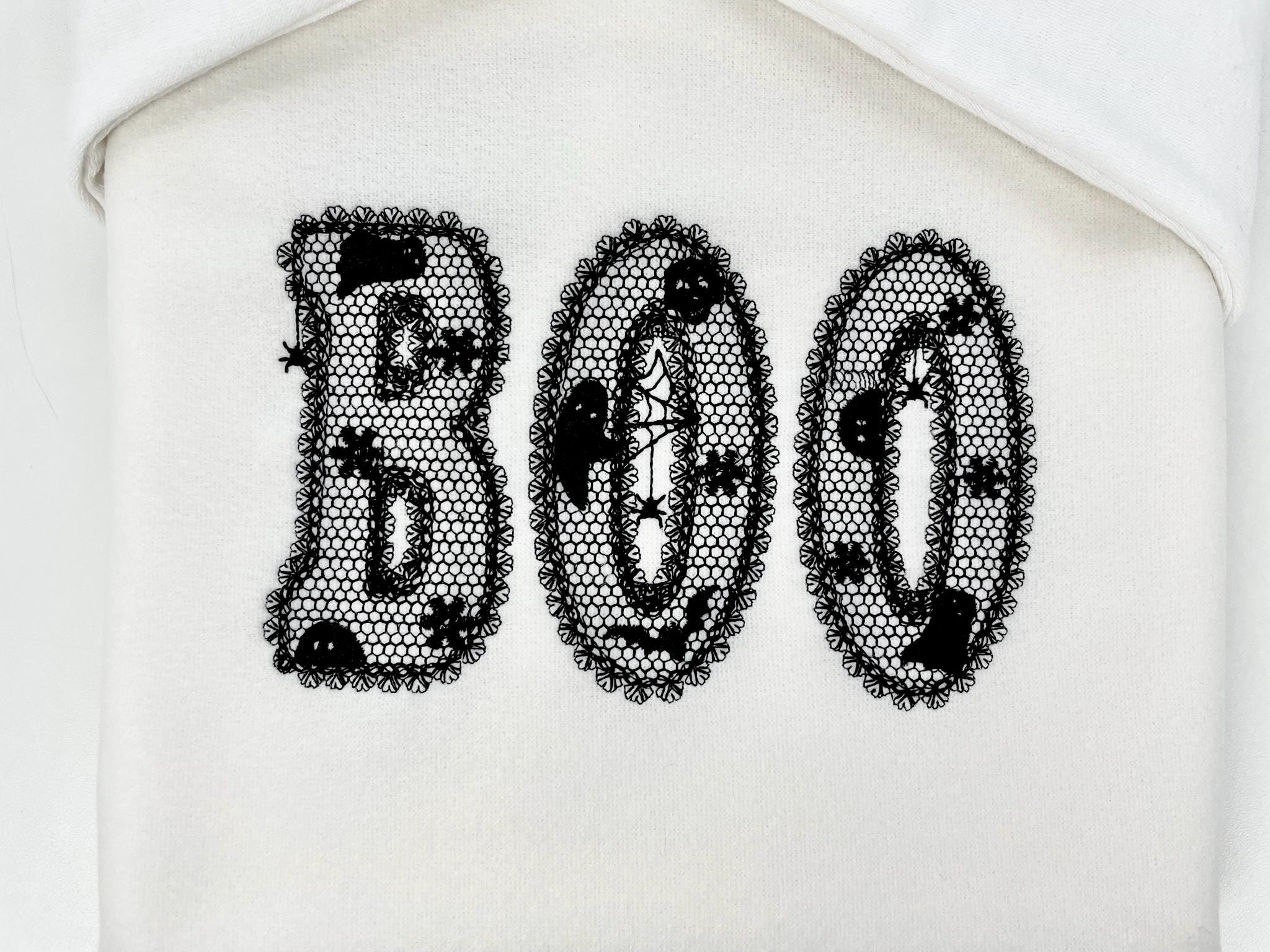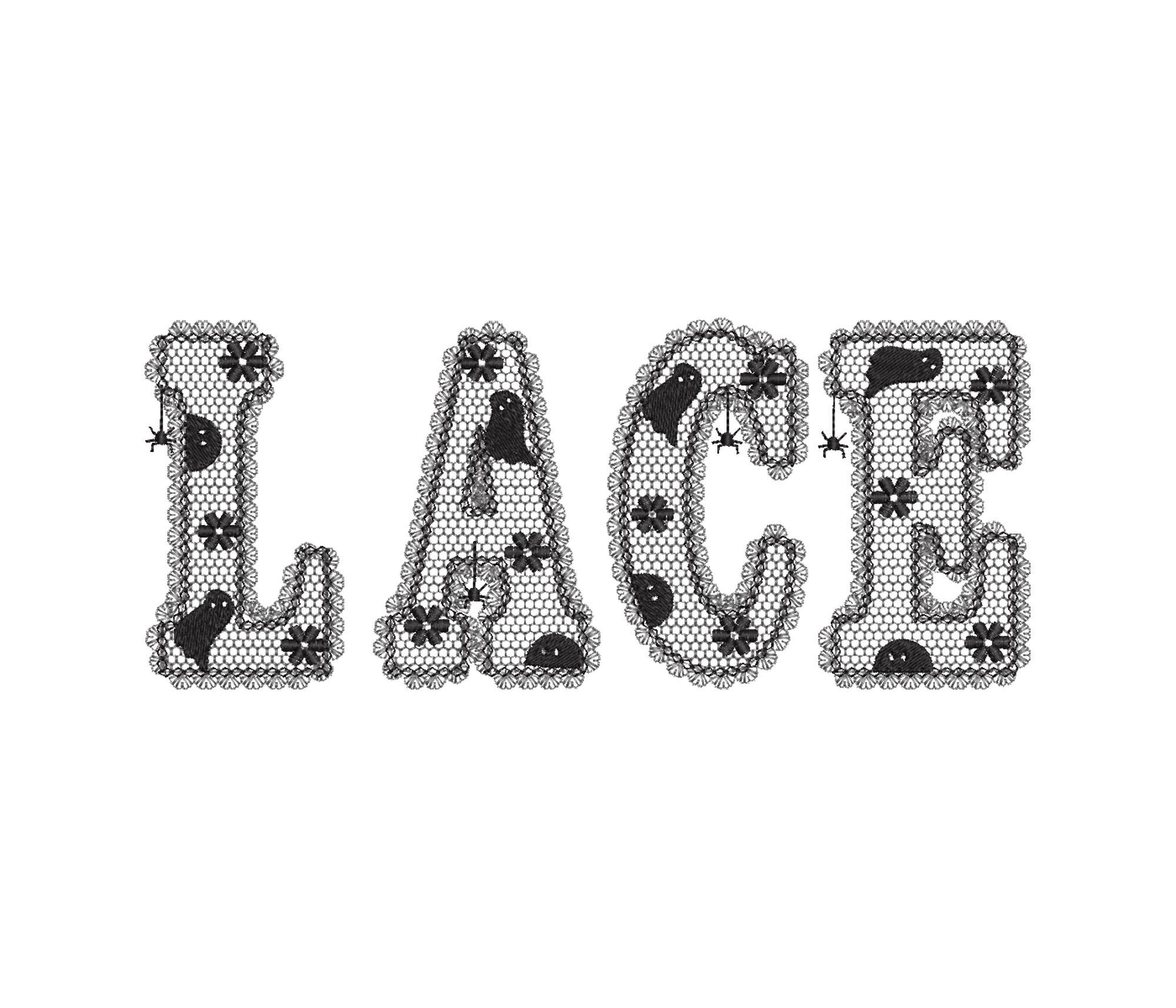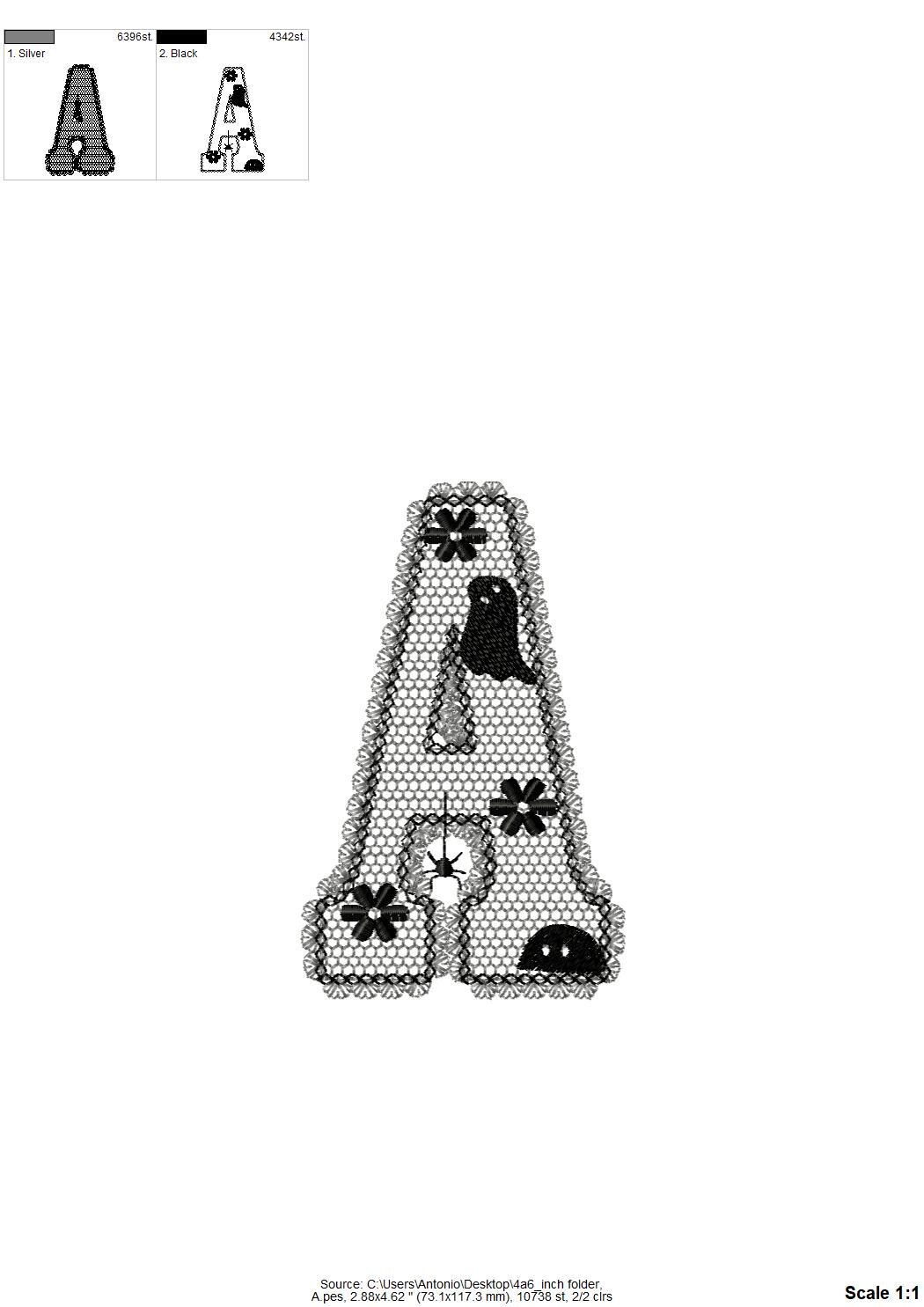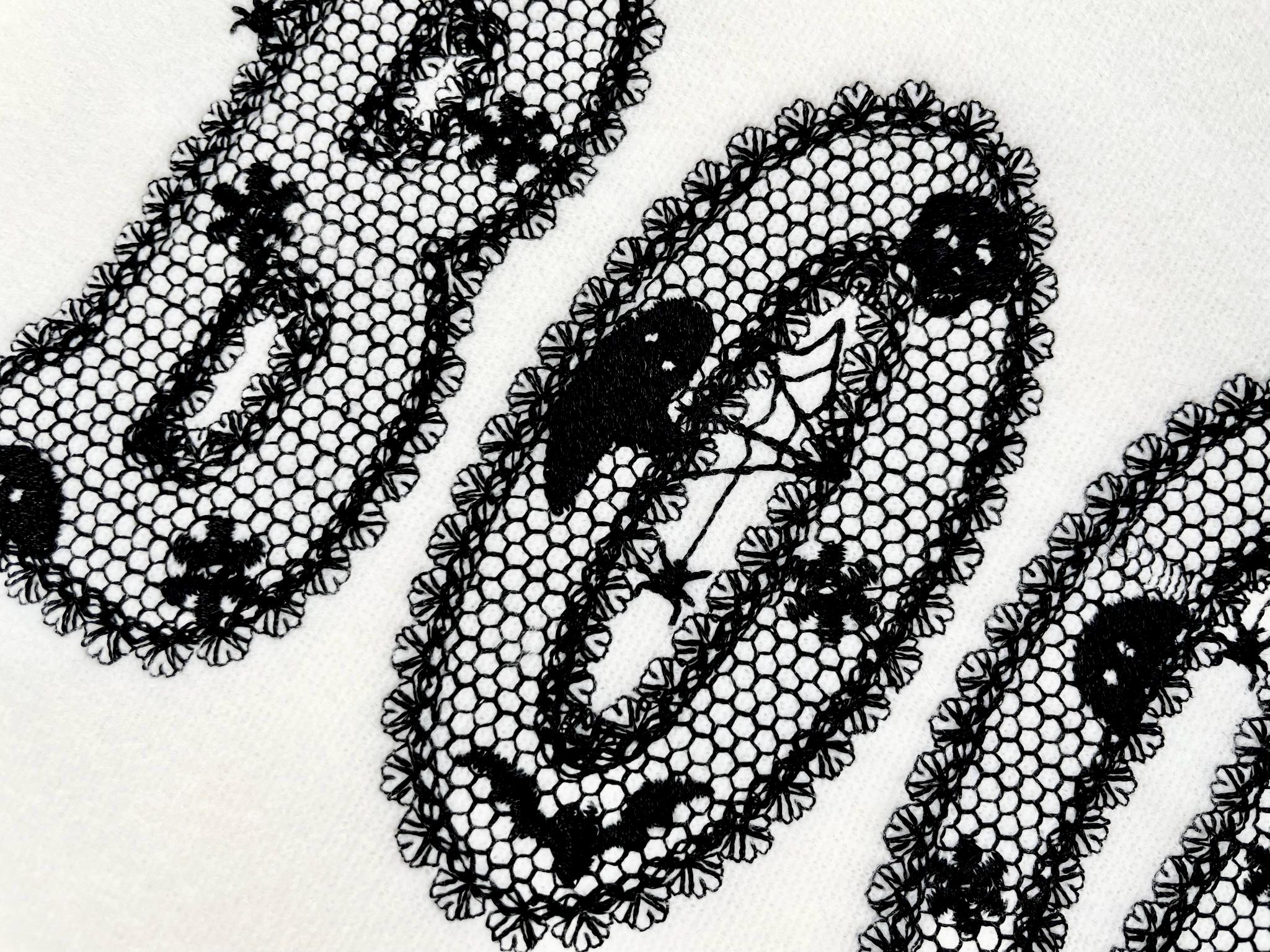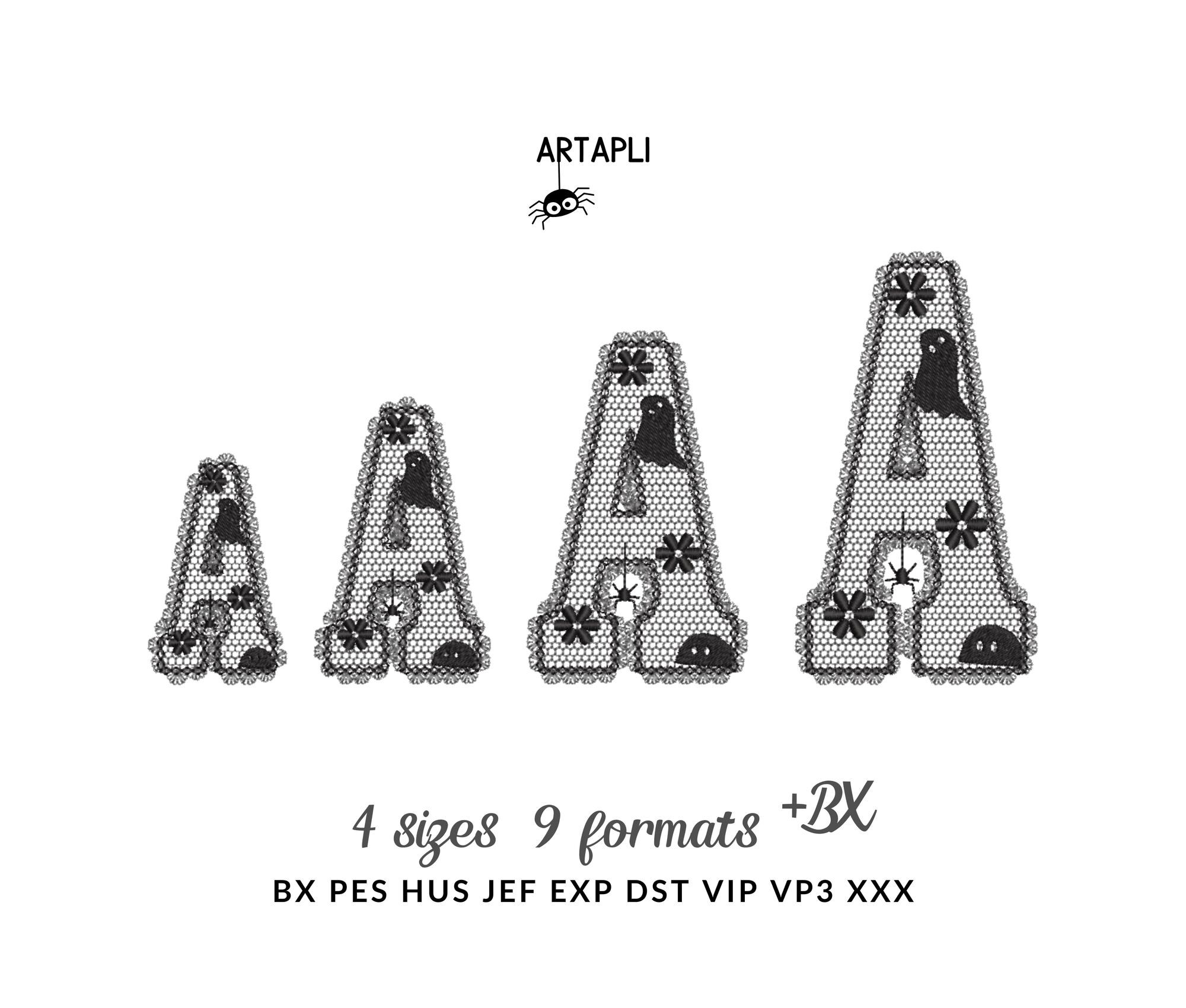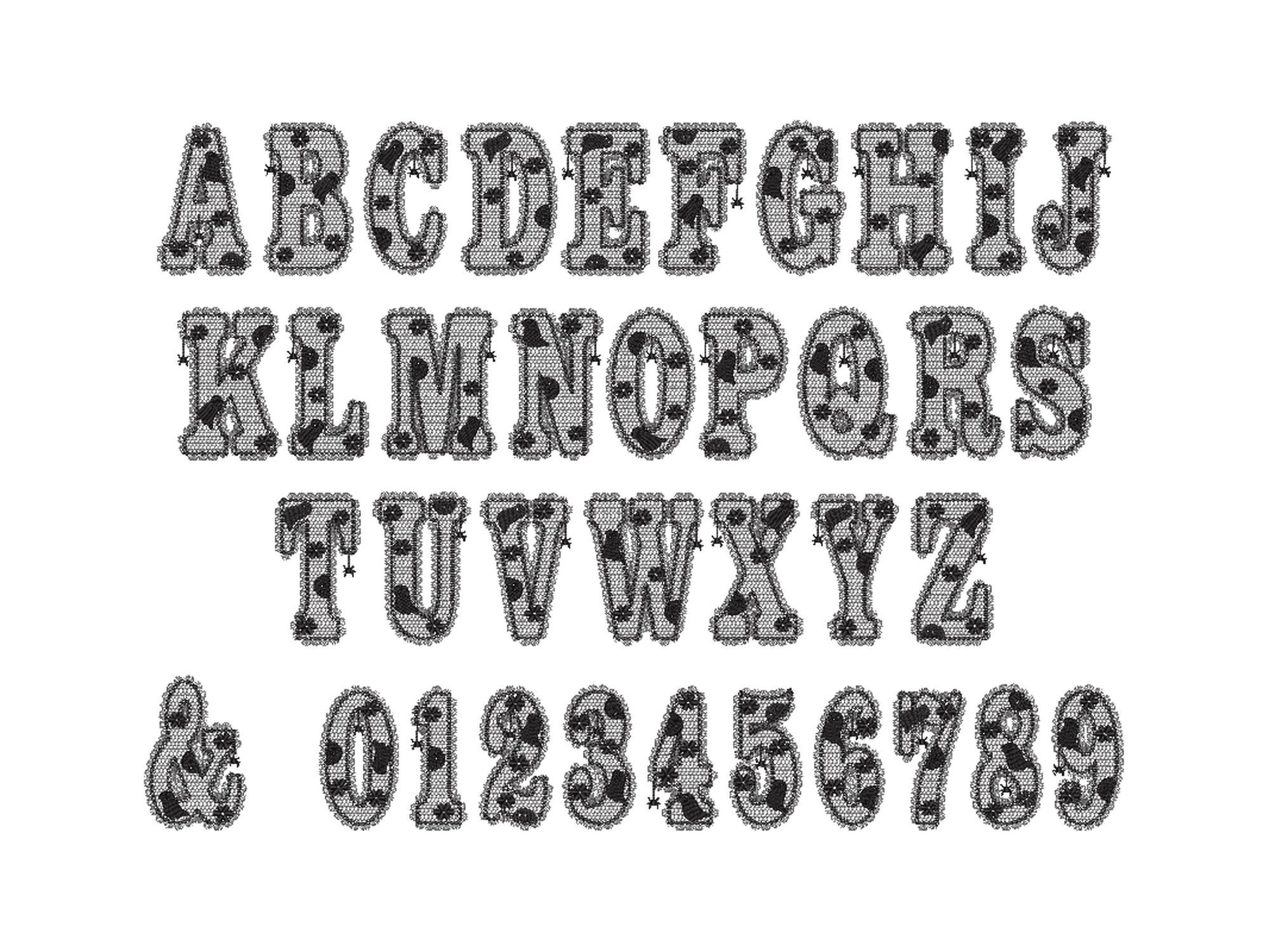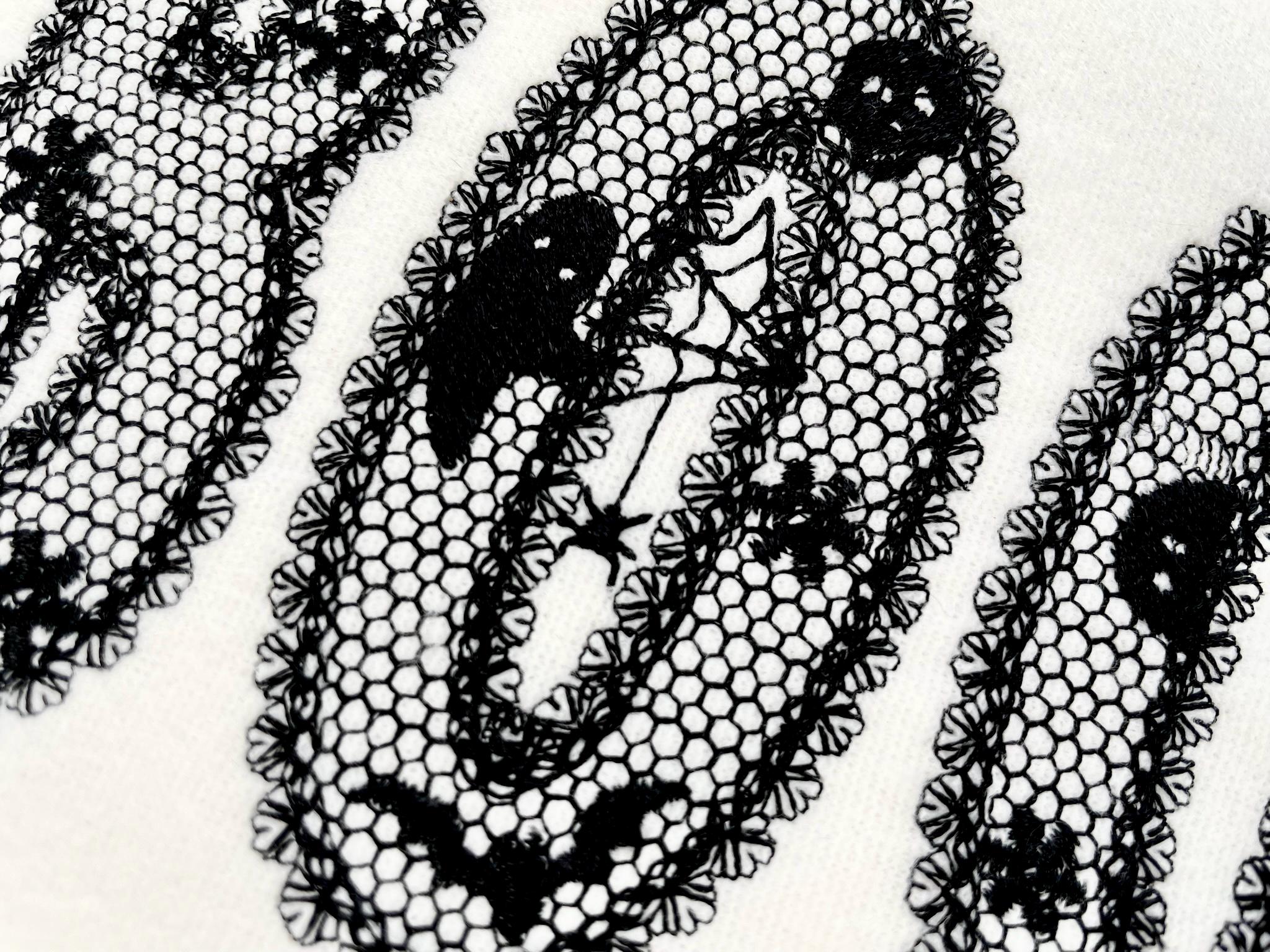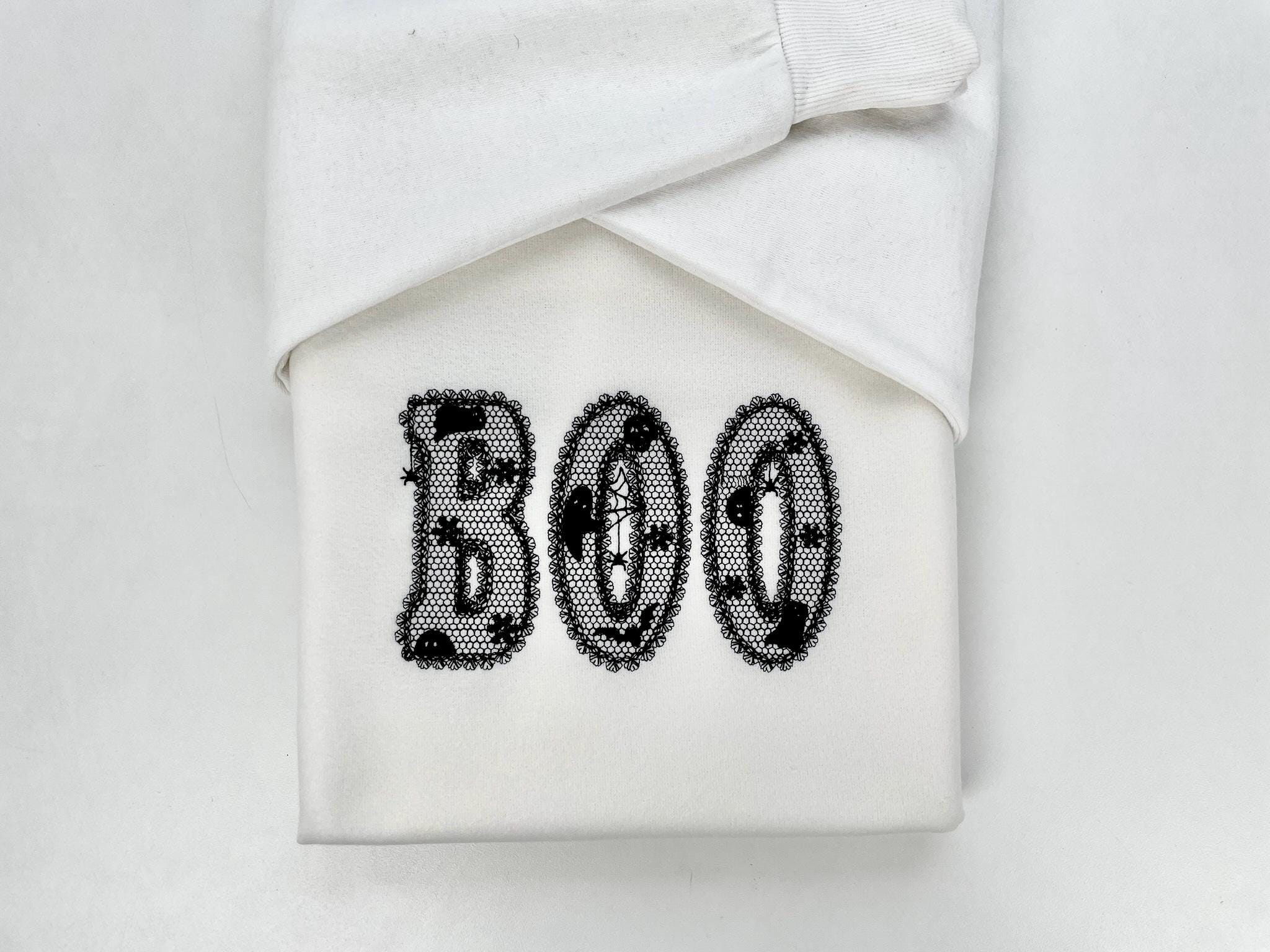
Lace Edge Halloween FONT lace patterned Floral Alphabet Monogram Peekeng Ghost Spider machine embroidery designs large sizes 3 up to 5.7 inches
Lace pattern and lace edge are part of the design. The background fabric looks through. Stunning effect!